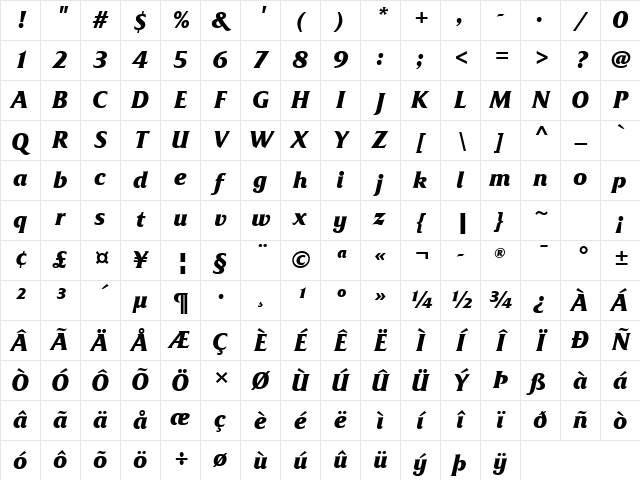
Friz Quadrata Com Bold Italic
Designer: Victor Caruso
Design Context for Friz Quadrata Com
Friz Quadrata Com is a composed and adaptable typeface that performs quietly and consistently across a wide range of design contexts. The slanted form adds forward momentum and visual energy. Its bold stroke weight gives it real presence on the page.